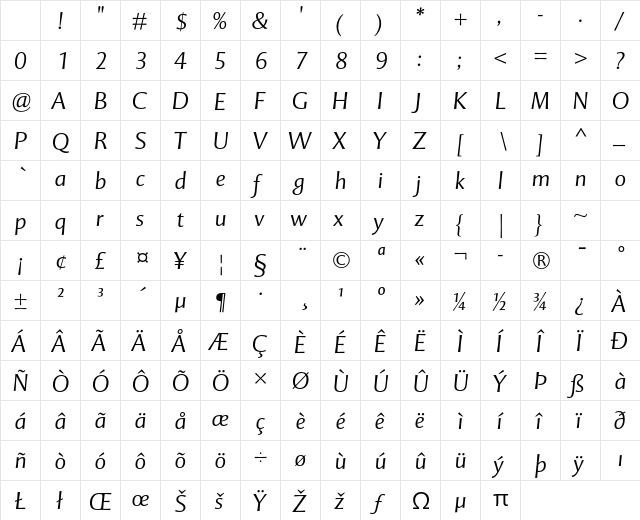
Mentor Sans Std Light Italic
Designer: Michael Harvey and Andy Benedek
Design Context for Mentor Sans Std
Mentor Sans Std is a composed and adaptable typeface that performs quietly and consistently across a wide range of design contexts. The slanted form adds forward momentum and visual energy. Its slender proportions lend an understated elegance to any composition.